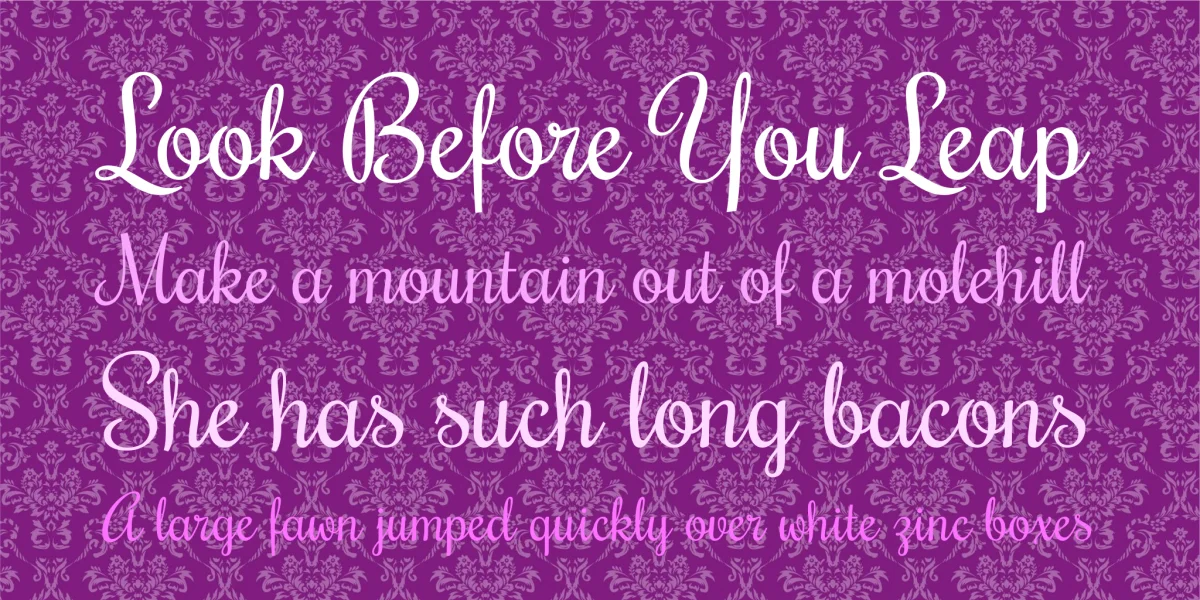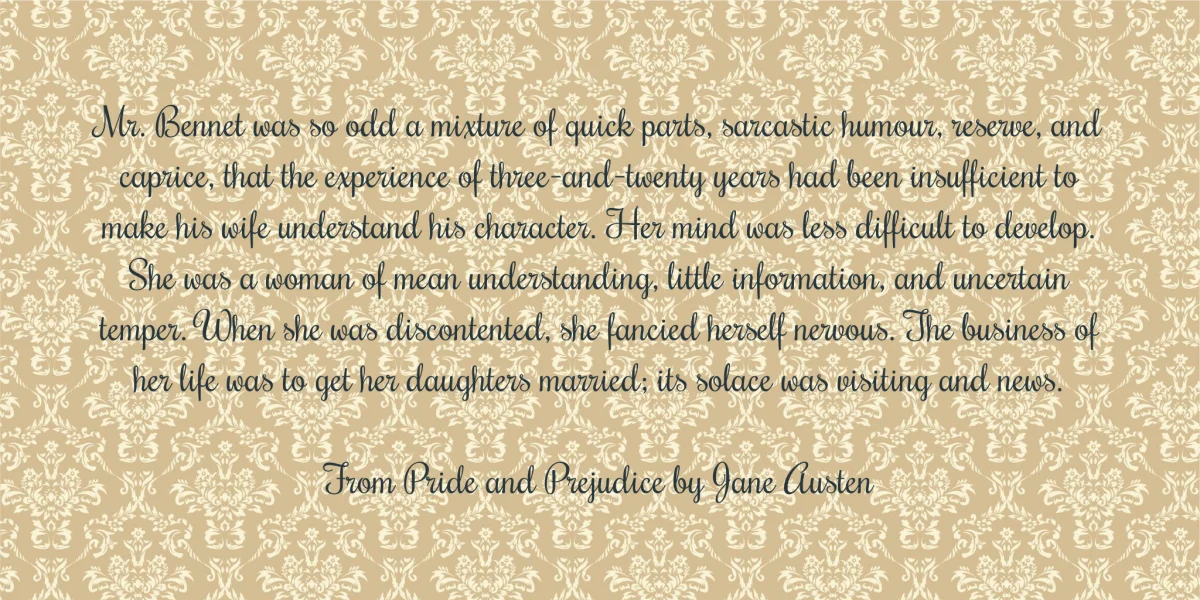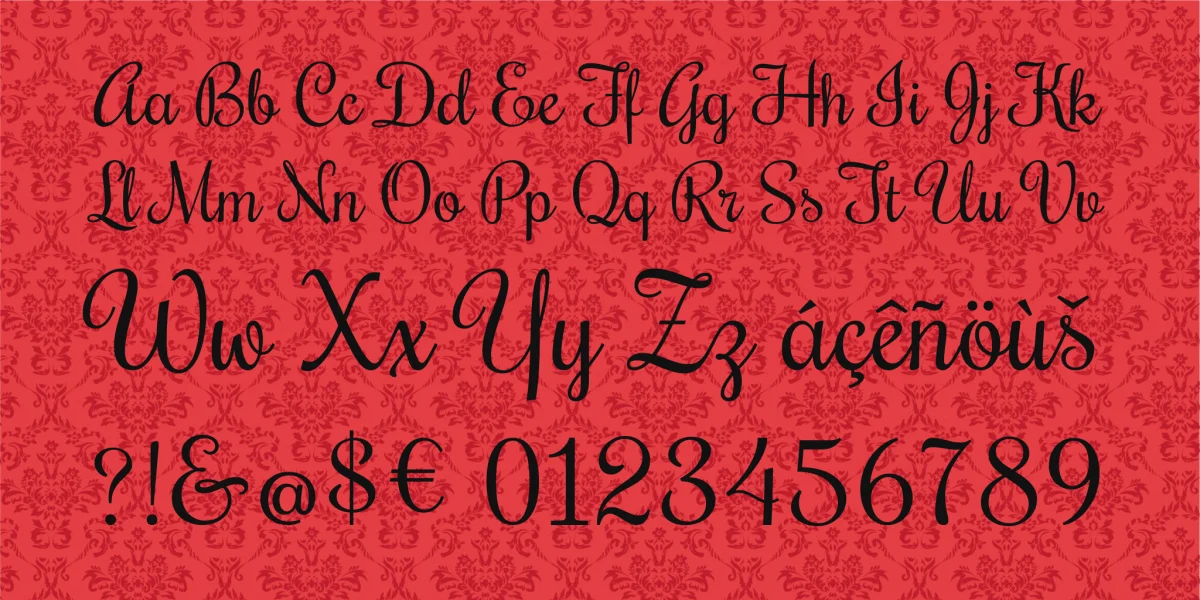
On the town with the latest sensation they call Rochester! This dapper fresh face is dressed to the nines and ready for action! Inspired by elegant calligraphic forms from the early age of Victorian and Art Deco, Rochester is the perfect selection when you want to add a touch of class or a smart looking formal style to any correspondence or memorandum!